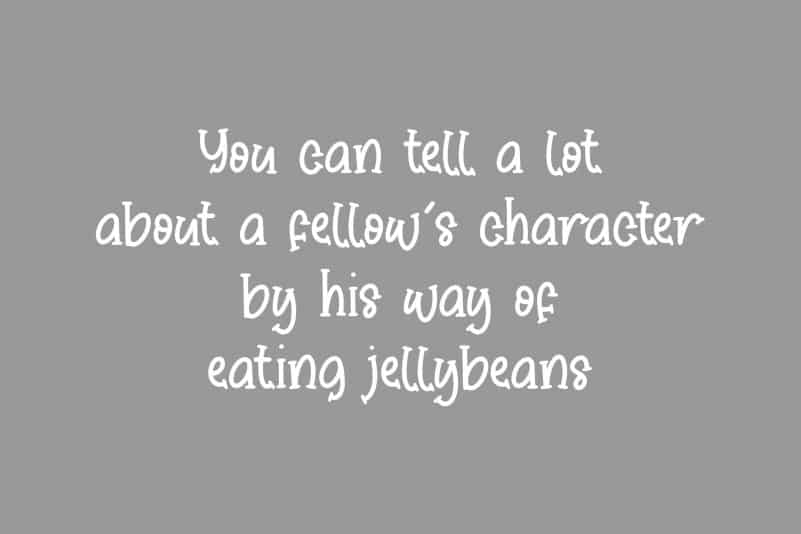
Sticky Candy fun slab serif Font
Proudly Present, Sticky Candy Font.
Sticky Candy is a fun slab serif Font.
Sticky Candy is perfect for product packaging, branding project, megazine, social media, wedding, or just used to express words above the background.